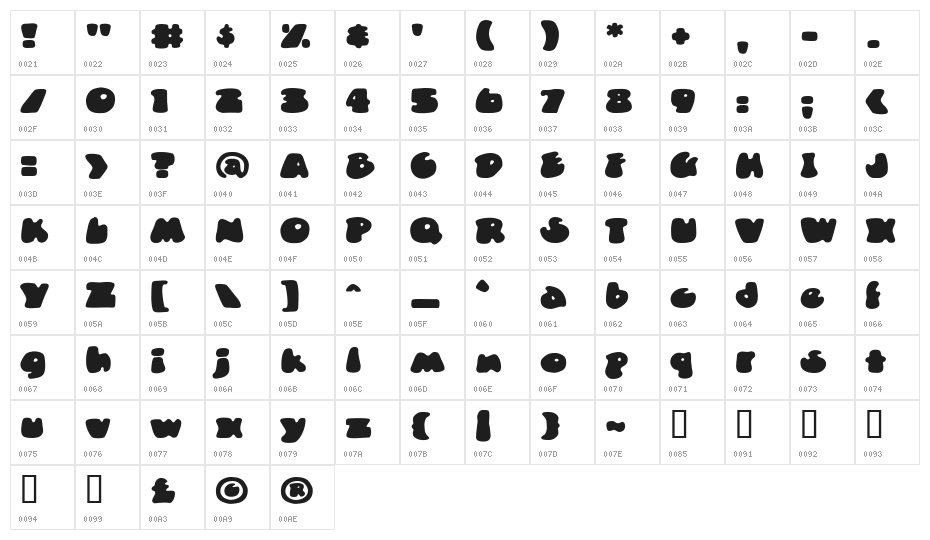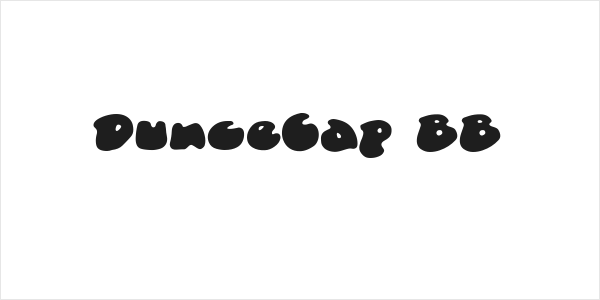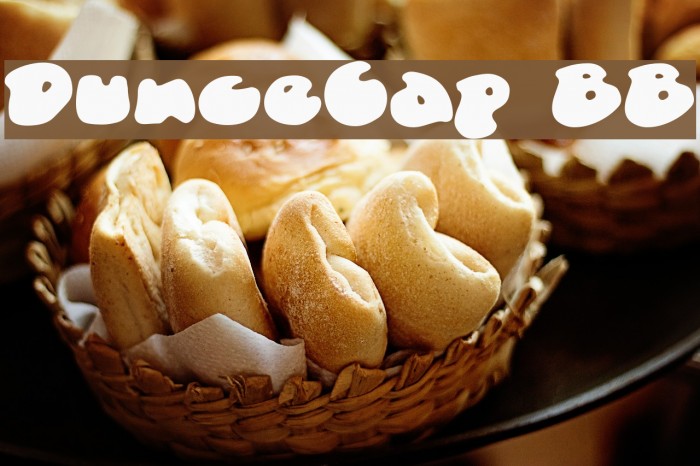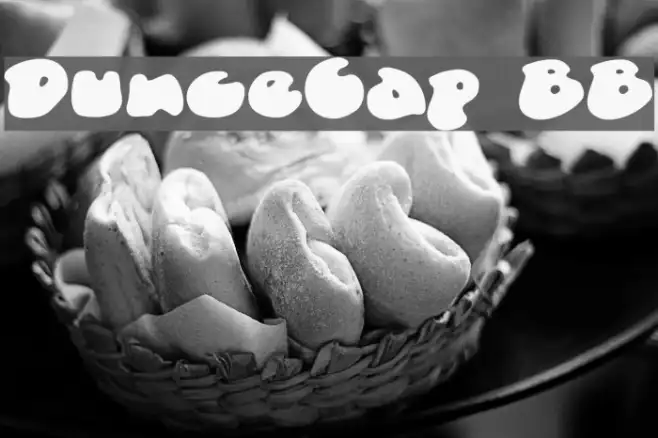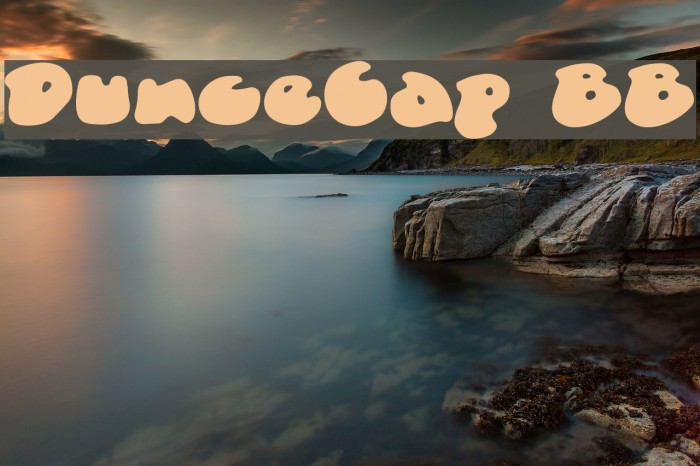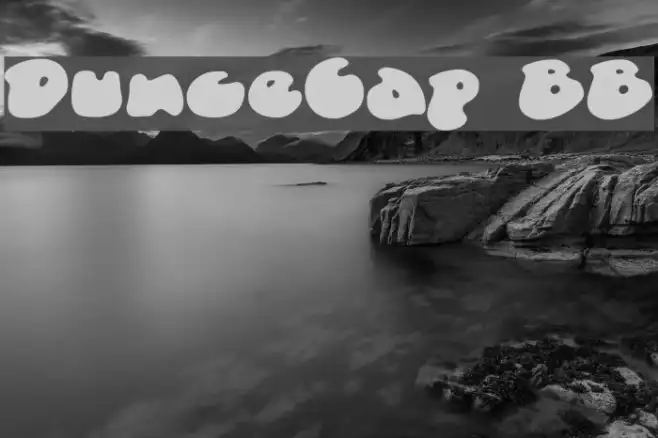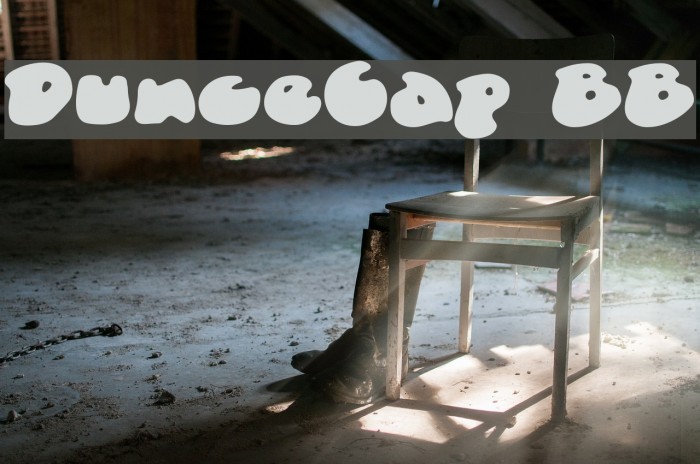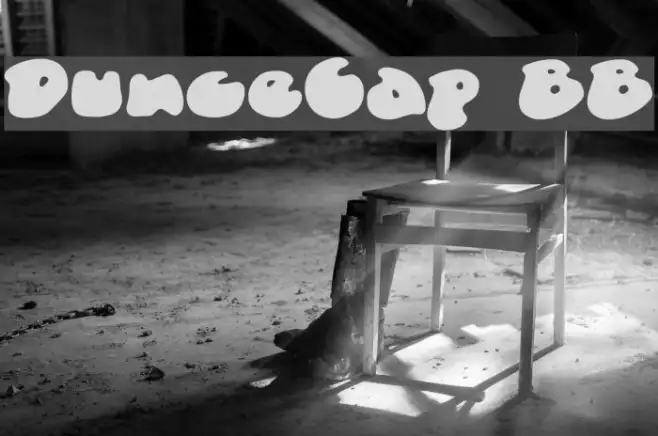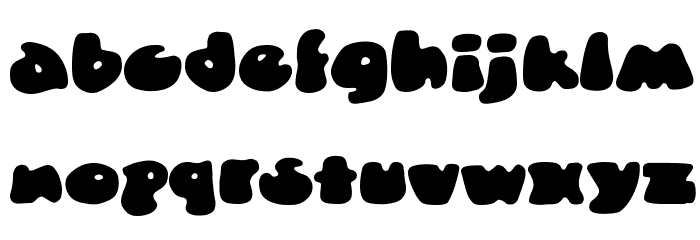
DunceCap BB Font
DunceCap BB Description
This playful and bold font features thick, rounded characters that exude a sense of fun and whimsy. The letters are heavily weighted with a bubbly appearance, making them stand out with a strong visual presence. Each character is uniquely shaped, adding to the font's quirky and informal style. The font's design is consistent across uppercase, lowercase, numbers, and special characters, maintaining its distinctive look. Its exaggerated curves and soft edges make it ideal for projects that require a lighthearted and engaging aesthetic.
| Overall Style | Playful, Quirky |
| Proposed Projects | Ideal for children's books, comic strips, playful branding, party invitations, and posters. |